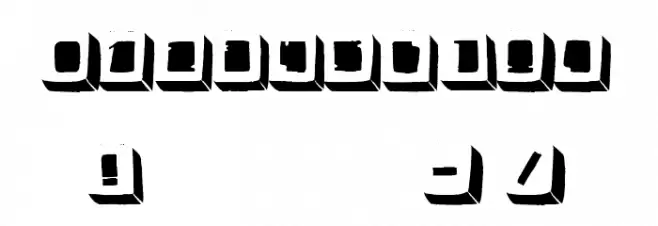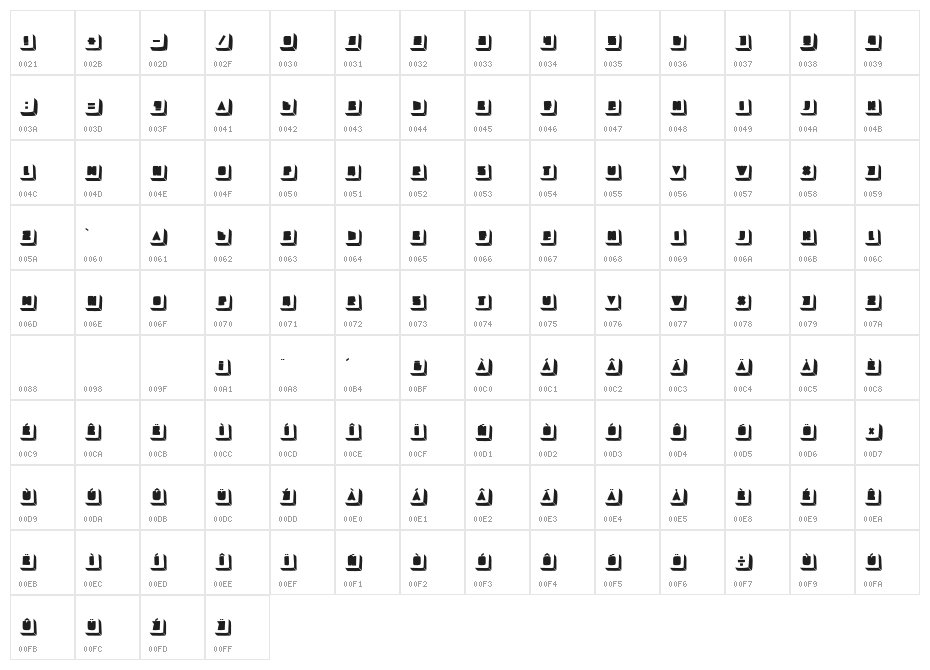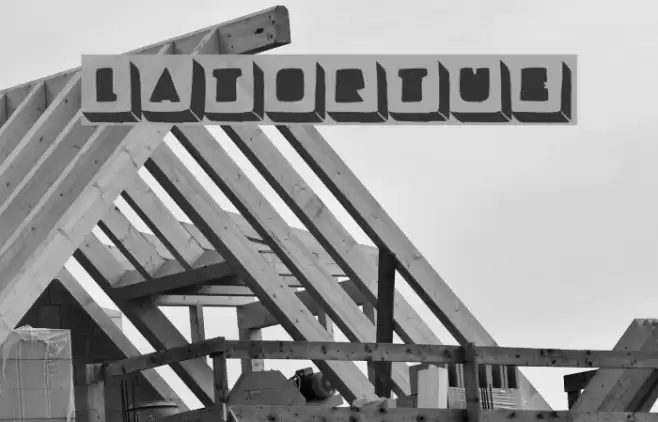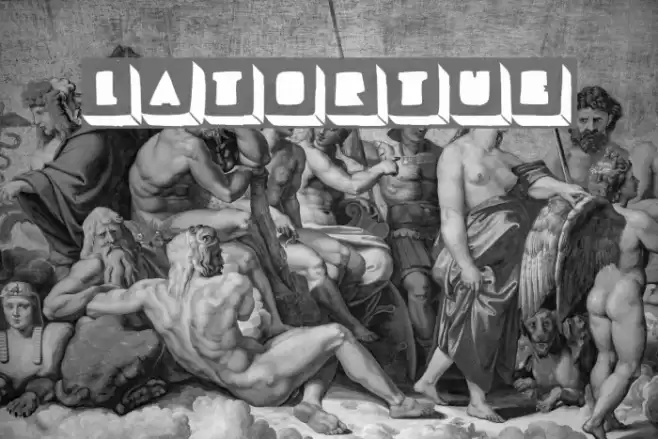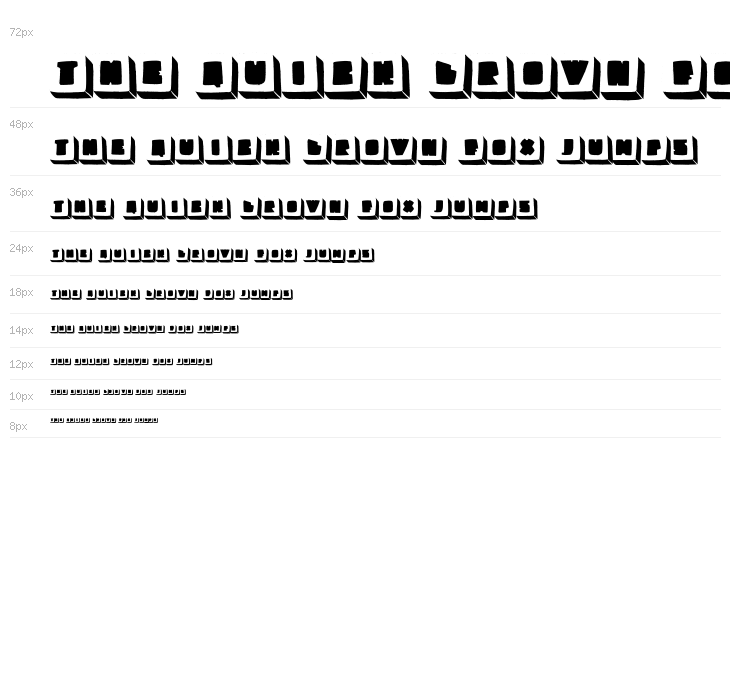
LaTortue Font
LaTortue Description
This font features a bold, three-dimensional block style with a shadow effect that gives each character a striking, embossed appearance. The letters are uppercase and have a consistent, geometric form, which adds to their impactful presence. The design is reminiscent of retro or vintage signage, with a playful yet robust aesthetic. The characters are evenly spaced, and the shadowing adds depth, making the font suitable for eye-catching displays. Its unique style makes it ideal for projects that require a bold statement or a touch of nostalgia.
| Proposed Projects | Ideal for poster designs, retro-themed branding, video game graphics, or any project needing a bold, eye-catching title. |